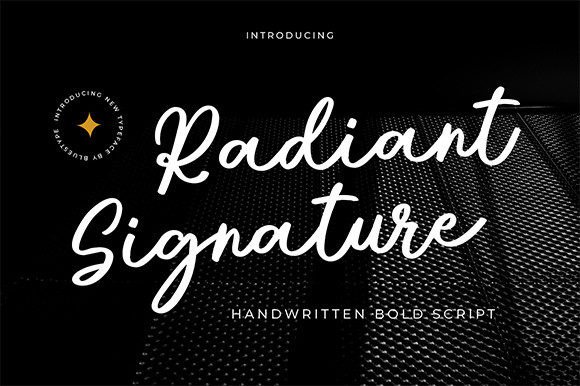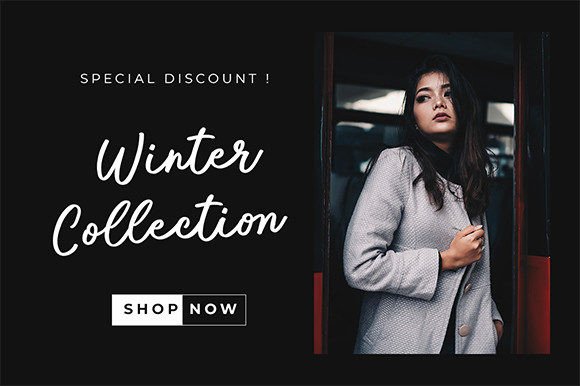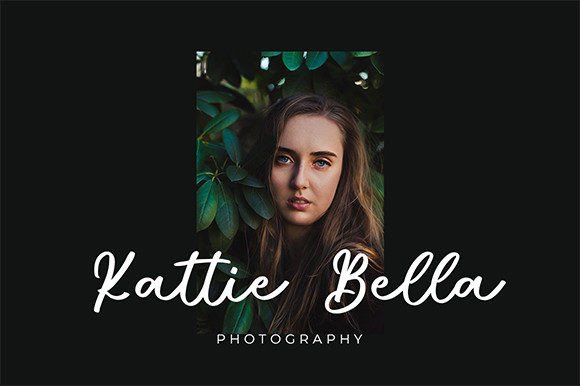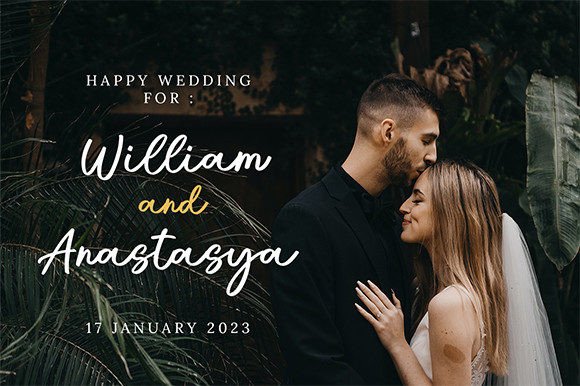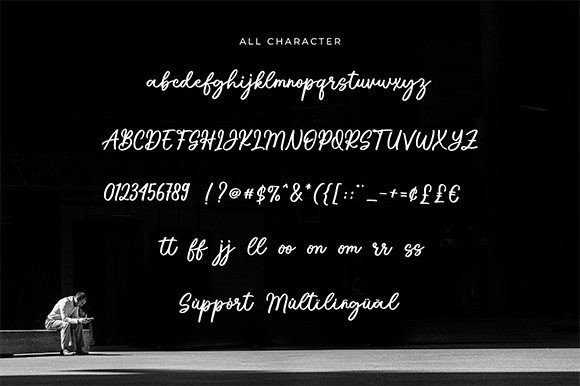
About Radiant Signature Font
Radiant Signature is a stylish handwritten font masterfully crafted to become a true favorite. Contemporary and fresh, it is perfect for any design you wish to create. Add it to your creative projects and make them outstanding!